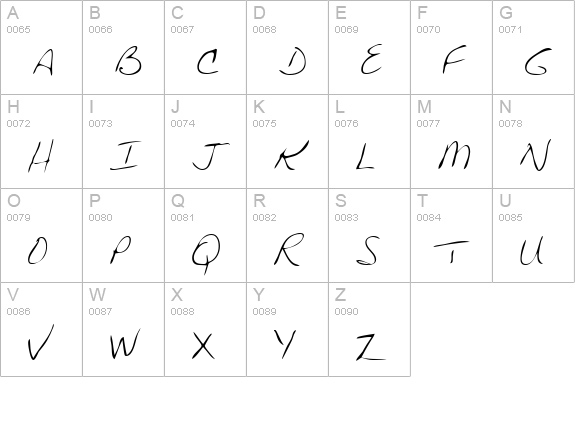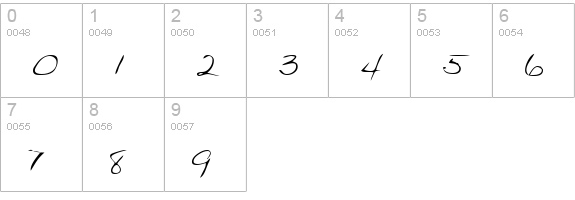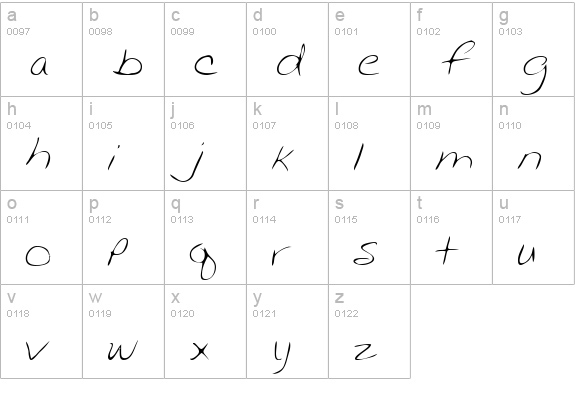
JackiesHand Regular Font Details
JackiesHand Regular is the standard, neutral variant in the JackiesHand typeface family \xE2\x80\x94 well suited to general body text, paragraphs, and standard typographic work.
Introducing JackiesHand Regular, a delightful and charming font that will add a touch of whimsy to your creative projects. This unique handwritten typeface captures the essence of a playful and carefree spirit, making it perfect for a wide range of design applications. With its perfectly imperfect strokes and uneven letterforms, JackiesHand Regular exudes a sense of authenticity and warmth. Each character is lovingly crafted to reflect the natural quirks and imperfections of handwriting, giving your designs a personalized and handmade feel. Whether you're creating greeting cards, invitations, logos, or social media graphics, JackiesHand Regular will bring a sense of joy and character to your designs. Its versatility allows it to be used in both formal and informal settings, making it a go-to font for designers who appreciate its versatility. But the best part? JackiesHand Regular is absolutely free! That's right, this fantastic font is freely available to download at FontsMarket.com. Now you can enhance your projects without breaking the bank or compromising on quality. So why wait? Download JackiesHand Regular today and see how it can elevate your designs to new heights. Let this font be your secret weapon in creating eye-catching and memorable visuals that stand out from the crowd.